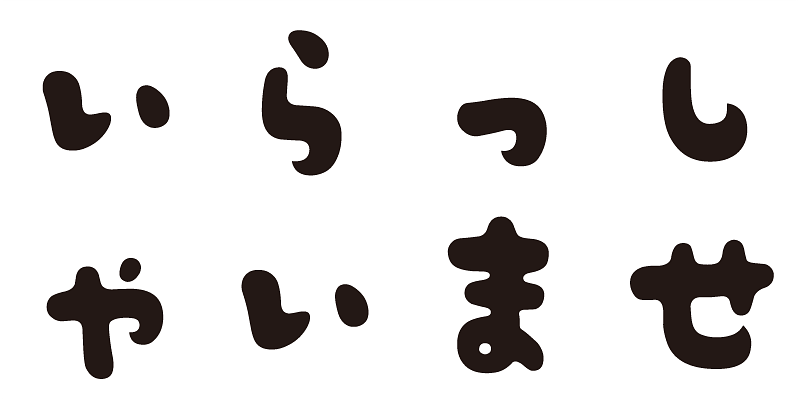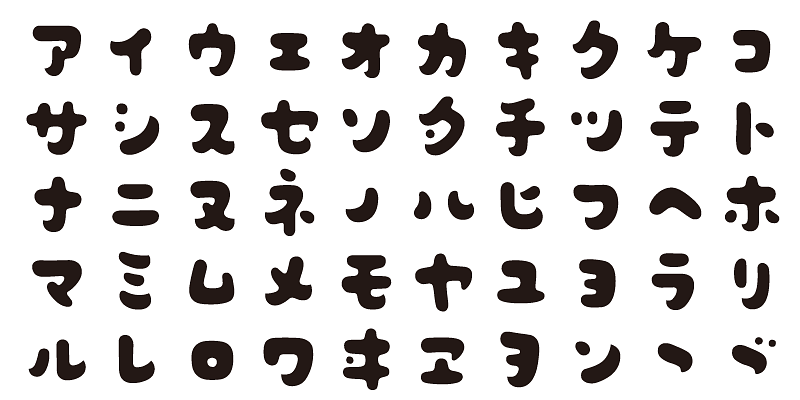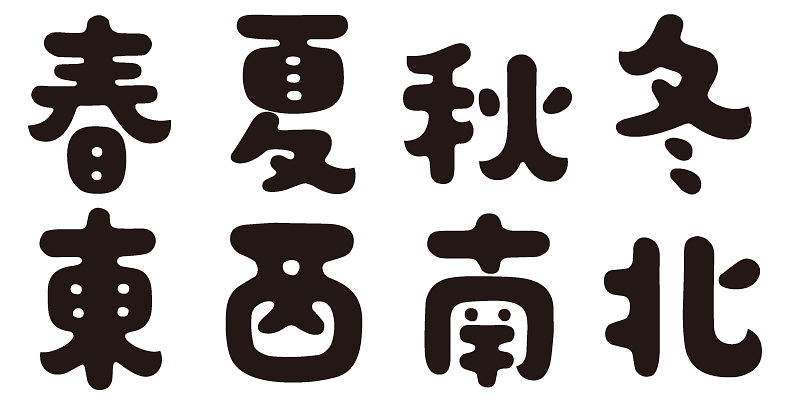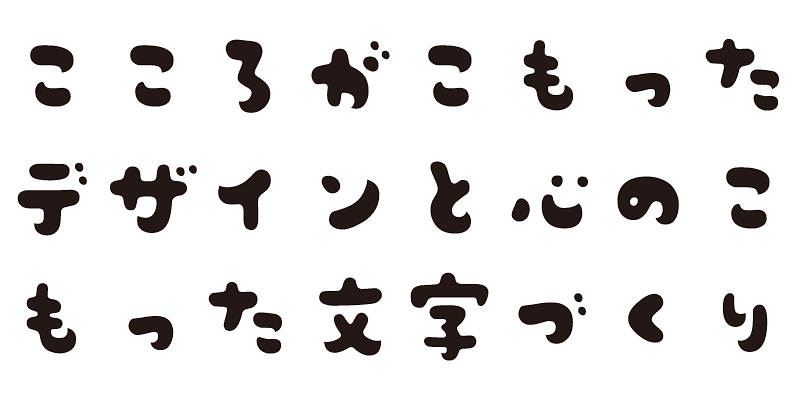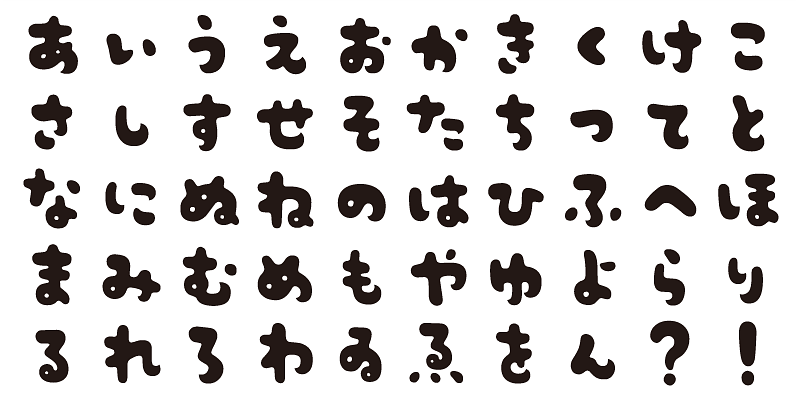
Gorogoro (chunky and rustic), horohoro (crumbly and delicate), fukkura (soft and fluffy), hokkori (warm and cozy). This typeface evokes the image of handmade cookies and breads, carrying a sense of tastiness even with slight inconsistencies.
This font includes top 1,000 kanji characters chosen from character frequency tables made by newspaper companies, publishing houses and linguistic research institutes, plus about 400 alphanumeric, kana characters and punctuation marks.